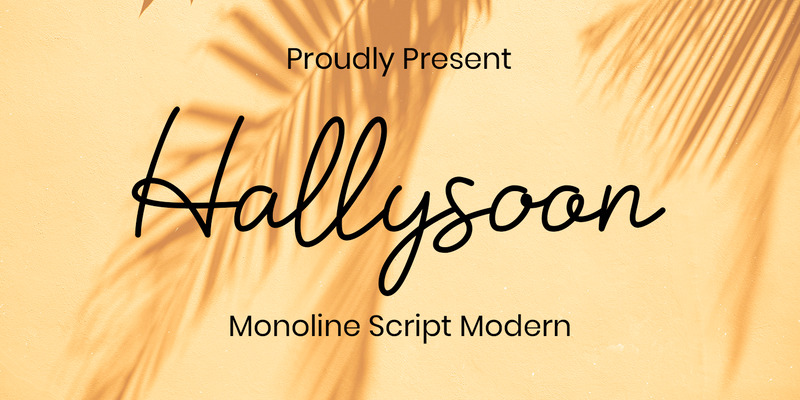
Hallysoon - Monoline Cursive Font
Hallysoon is monoline script font which natural movement and elegant for signature style. Hallysoon perfect for branding projects, logo, wedding designs, social media posts, advertisements, product packaging, product designs, label, photography, watermark, invitation, stationery and any projects that need handwriting taste.